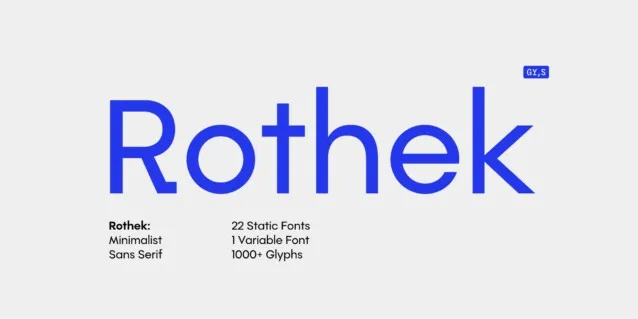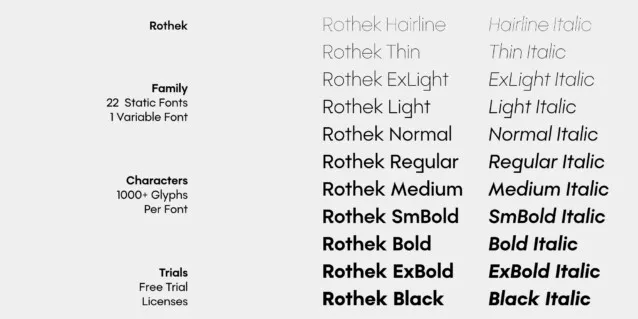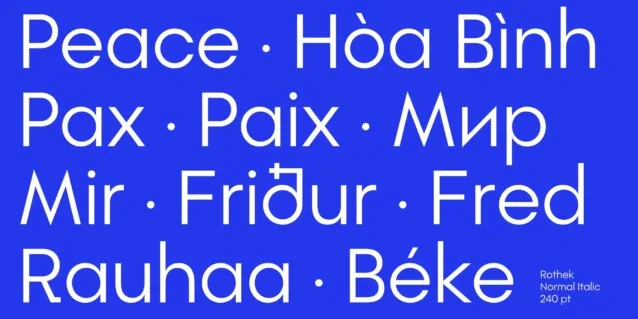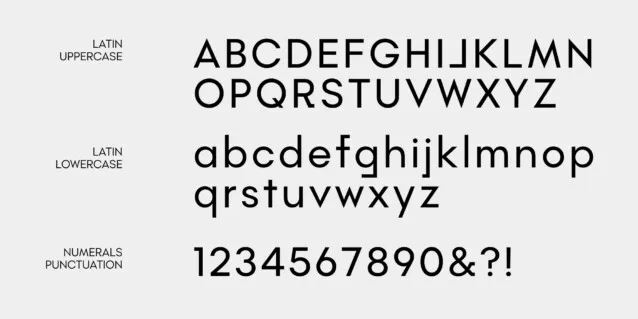
Rothek Font
About Rothek Font
As a typographer and graphic designer, I’m always drawn to typefaces that combine precision and character. I discovered the Rothek Font while searching for a bold sans serif font that could anchor a visual identity project. Its geometric forms and clean lines immediately caught my attention.
I used it in a brand redesign where structure and personality had to coexist, and it delivered exactly that. The way it holds both modern design and expressive energy made it stand out. I’m sharing this review because Rothek isn’t just another typeface; it’s a tool that genuinely elevates creative work.
The Font Type and Designer
The Rothek Font Family was designed by Eugene Tantsurin and Anna Remm of Groteskly Yours Studio, known for crafting typefaces that mix clarity with creativity. It’s a modern geometric sans serif type family that balances strong structure with a playful edge. The design feels sharp and confident yet approachable, making it useful across a wide variety of projects.
This type family spans a wide weight range from thin to black, offering flexibility for titles, display fonts, and extended text blocks. The italic and variable font versions maintain smooth curves while preserving rhythm and consistency. Every glyph reflects thoughtful construction, ensuring both readability and design flair.
The Groteskly team approached Rothek as both a workhorse and an art piece. It delivers technical accuracy through OpenType features, tabular figures, and stylistic alternates, yet it also offers visual warmth with subtle geometric curves and upright forms. It supports extended Cyrillic, Vietnamese, and many European languages, making it a reliable font for designers with global projects.
Each character feels polished and deliberate. Whether you’re designing for web design, print, or desktop layouts, its clean balance between functionality and style stands out.
Features of This Font
The Rothek Font blends function and form beautifully. Its geometric sans serif roots give it strength, while its playful curves keep it approachable. Each weight maintains consistent proportions, ensuring seamless transitions across design projects. The Rothek supports multiple numeral styles, oldstyle figures, tabular alignments, and case-sensitive punctuation, providing the control professionals need.
Its OpenType features include fractions, superscript, subscript, and extended stylistic sets. These features make it suitable for complex layouts or branding that demands precision. The glyph map is extensive, featuring symbols, italic forms, and accents across numerous languages. Whether used for editorial typography or tech branding, its sharp and clean design keeps the layout consistent and legible.
The Rothek Font Family includes italics and 1 variable font, so designers can easily adapt to different platforms. The strong and unique character comes through in its details — the spacing, curve depth, and modern geometric influence. It’s visually balanced, elegant, and versatile enough to fit minimalist projects or bold marketing campaigns. The Rothek Font Free Download version lets you explore these capabilities before investing in a commercial license.
Its true strength lies in adaptability. Rothek transitions effortlessly between display font roles and body text, keeping the tone professional yet lively.
The Rothek Font works across industries and design styles. Its versatility makes it ideal for branding, web design, editorial layouts, and packaging. The sans serif type family ensures clarity, while the geometric proportions add modern appeal. Designers can use it for logos, advertisements, or digital interfaces that require both style and readability.
Its strong character and modern geometric design help brands appear confident and forward-thinking. In typography-focused layouts, it provides balance between minimalism and creativity. The variable font flexibility lets you adjust tone depending on the context, from thin elegance to bold authority.
For print, it shines in editorial and corporate designs where consistency matters. On digital platforms, its clean lines and proportional letterforms translate beautifully on screens. It’s especially effective for design projects that demand both artistic expression and technical precision. Whether you’re working on a sleek tech startup logo or a modern magazine layout, Rothek delivers professionalism and warmth in equal measure.